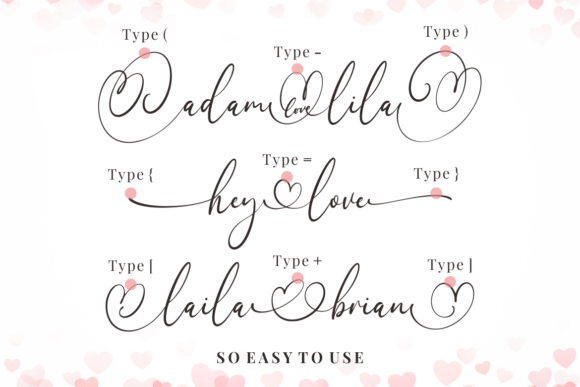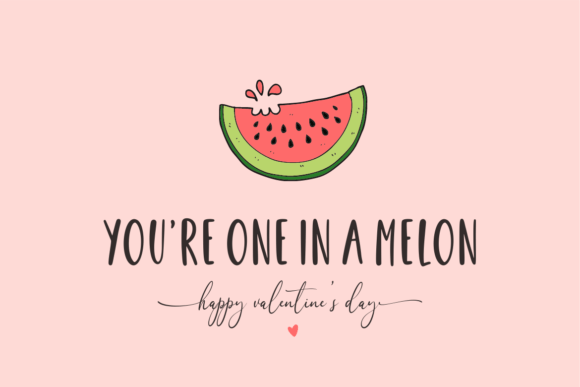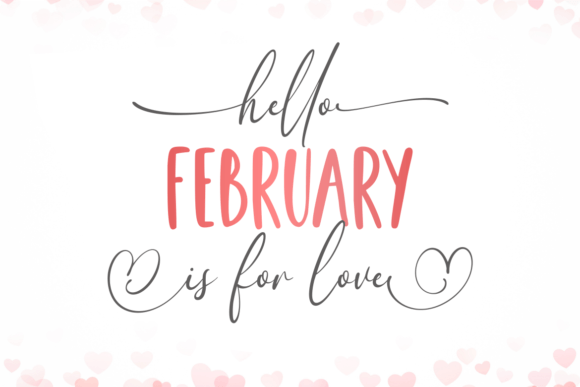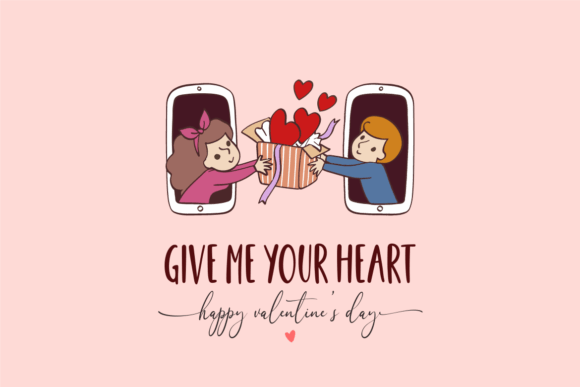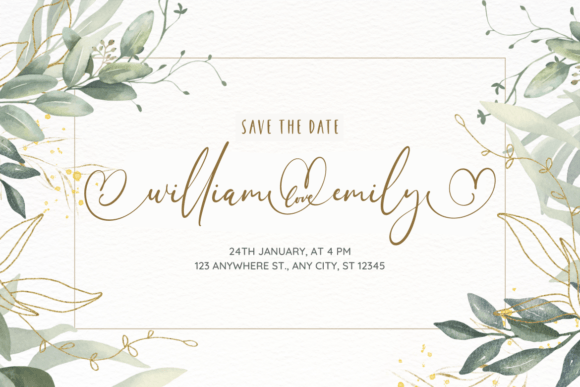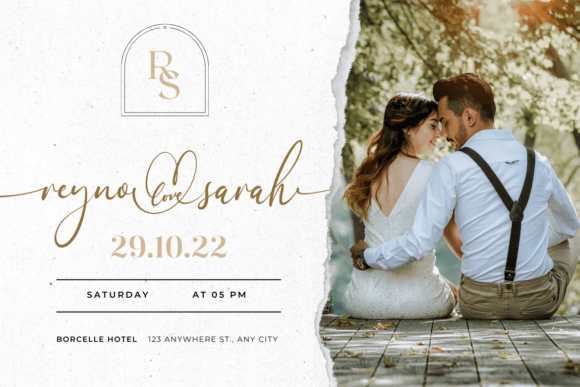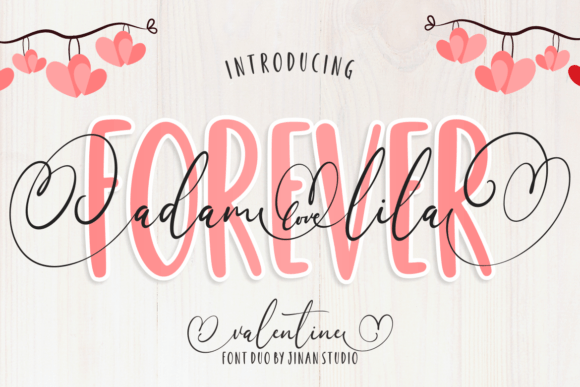
Introducing Forever Adam Lila Duo Font: Elevate Your Designs with Elegance and Romance
Are you a designer or crafter looking for a font that can add a touch of romance and elegance to your creations? Look no further than the Forever Adam Lila Duo Font. This stylish and delicate duo font, consisting of a script and sans serif font, is perfect for a wide range of applications, from greeting cards to headlines.
What Makes Forever Adam Lila Duo Font Special?
The Forever Adam Lila Duo Font is a versatile and beautiful font that can be used to create stunning designs. The duo font consists of two complementary fonts: a script font and a sans serif font. The script font is elegant and cursive, while the sans serif font is clean and modern. This combination allows you to create beautiful and cohesive designs that will stand out.
Key Features of Forever Adam Lila Duo Font
- Script and Sans Serif Font: The Forever Adam Lila Duo Font comes with two fonts that can be used together to create stunning designs.
- Elegant and Delicate: The font is designed to add a touch of romance and elegance to your creations.
- Versatile: The font is suitable for a wide range of applications, from greeting cards to headlines.
- Easy to Read: The sans serif font is clean and modern, making it easy to read.
Use Cases for Forever Adam Lila Duo Font
The Forever Adam Lila Duo Font can be used in a variety of design projects, including:
- Greeting Cards: Add a touch of romance and elegance to your greeting cards with the Forever Adam Lila Duo Font.
- Headlines: Use the script font to create beautiful and eye-catching headlines.
- Branding: Use the Forever Adam Lila Duo Font to create a cohesive brand identity.
- Stationery: Add a touch of elegance to your stationery with the Forever Adam Lila Duo Font.
- Digital Designs: Use the font in your digital designs, such as social media graphics and blog posts.
Tips for Using Forever Adam Lila Duo Font
Here are some tips for using the Forever Adam Lila Duo Font:
- Use the Script Font for Headlines: The script font is perfect for creating eye-catching headlines.
- Use the Sans Serif Font for Body Text: The sans serif font is clean and modern, making it perfect for body text.
- Experiment with Font Sizes: Experiment with different font sizes to create visual interest.
- Pair with Other Fonts: Pair the Forever Adam Lila Duo Font with other fonts to create a unique and cohesive design.
| Font Name | Forever Adam Lila Duo Font |
| Author | jinanstd |
The Forever Adam Lila Duo Font is a beautiful and versatile font that can add a touch of romance and elegance to your designs. With its script and sans serif fonts, this duo font is perfect for a wide range of applications, from greeting cards to headlines. Whether you’re a designer or crafter, this font is sure to become a staple in your design toolkit.